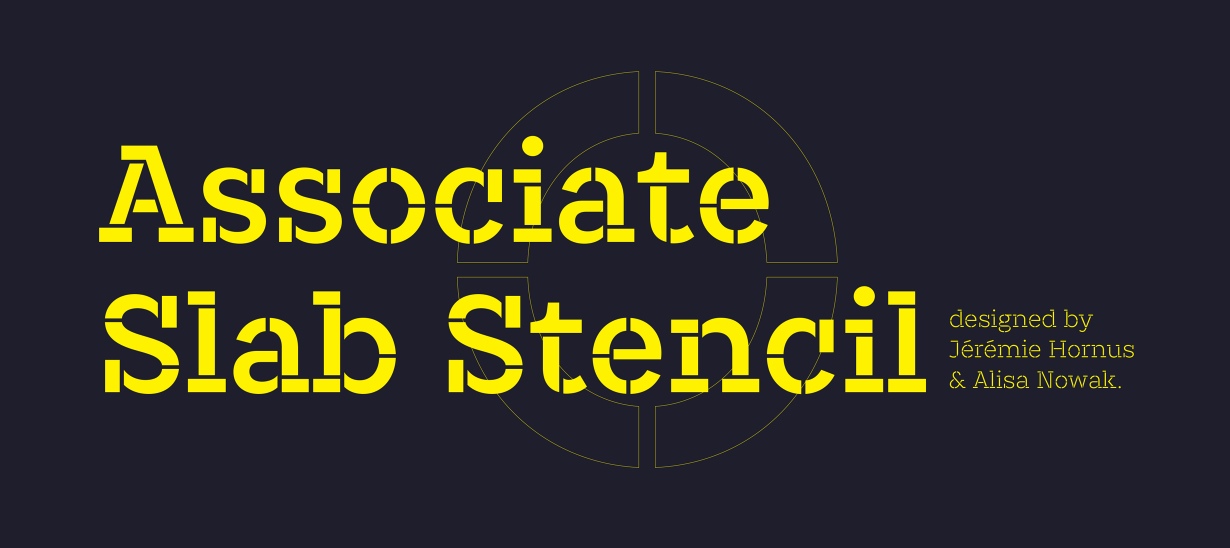
Associate Slab Stencil Font
Associate Slab Stencil Font is perfect for industrial branding, military-inspired designs, construction company logos, shipping and logistics materials, warehouse signage, tactical equipment branding, urban street art, concert posters, automotive branding, and rugged professional services marketing.
What makes Associate Slab Stencil Font exciting is its commanding fusion of institutional authority with industrial strength that creates an unmistakable presence of power and reliability. The font features robust slab serif letterforms enhanced with strategic stencil cuts that evoke both military precision and heavy-duty functionality. Its carefully engineered breaks and substantial structure make it perfect for organizations that need to communicate unwavering strength, professional competence, and institutional credibility while maintaining excellent visibility in challenging environments and demanding applications.
Associate Slab Stencil Font family includes various industrial weights such as Regular, Medium, Bold, and Heavy variations, often featuring different stencil cut styles and utilitarian-themed alternates. The family may include condensed versions, specialized symbols, and tactical-inspired decorative elements that enhance the font's authoritative aesthetic, providing designers with multiple options for creating powerful brand identities with professional military or industrial themes.
This formidable typeface has gained significant recognition among professional service firms and industrial organizations seeking authoritative typography solutions. Associate Slab Stencil Font Free Download provides an opportunity to evaluate this commanding font before purchase. The font's technical specifications include optimized stencil breaks that maintain readability while preserving authentic industrial aesthetics across all applications and challenging environments. Whether you're designing for security companies, construction firms, or professional consulting services, Associate Slab Stencil Font delivers the institutional strength your project demands. Its versatile nature makes it suitable for various professional applications including government communications, engineering firms, logistics operations, and industrial service providers, ensuring your typography choices convey uncompromising reliability and professional authority while creating trustworthy brand impressions that command respect and confidence through its distinctively powerful and institutionally credible visual character.